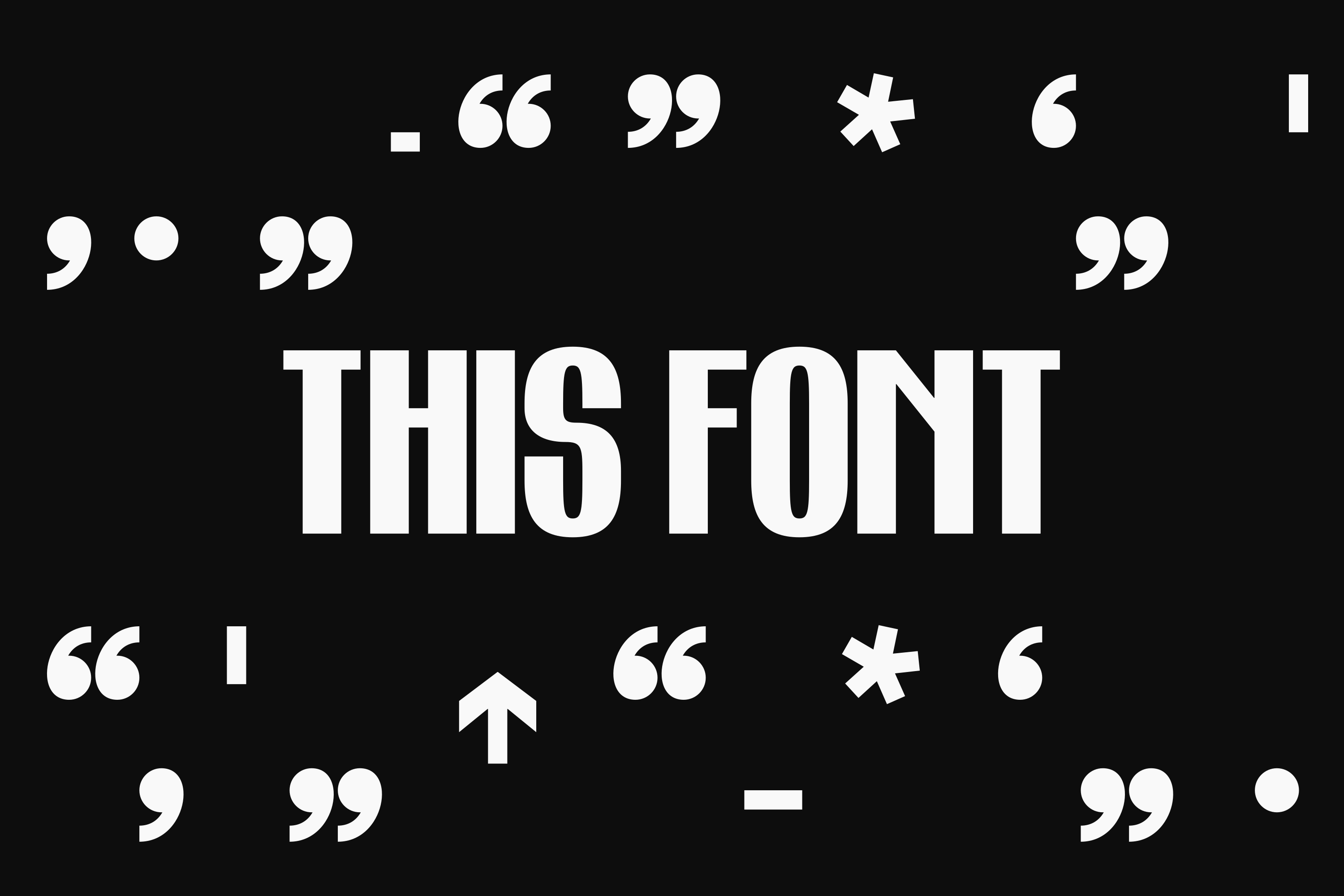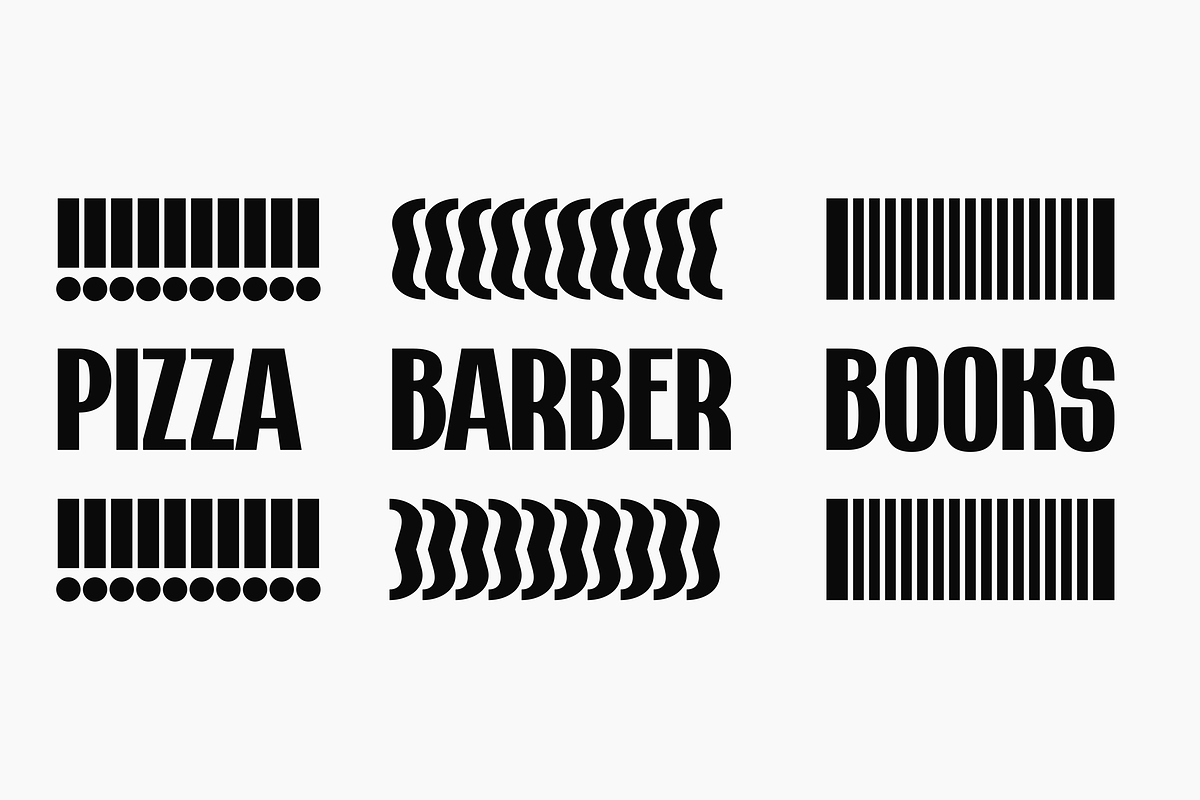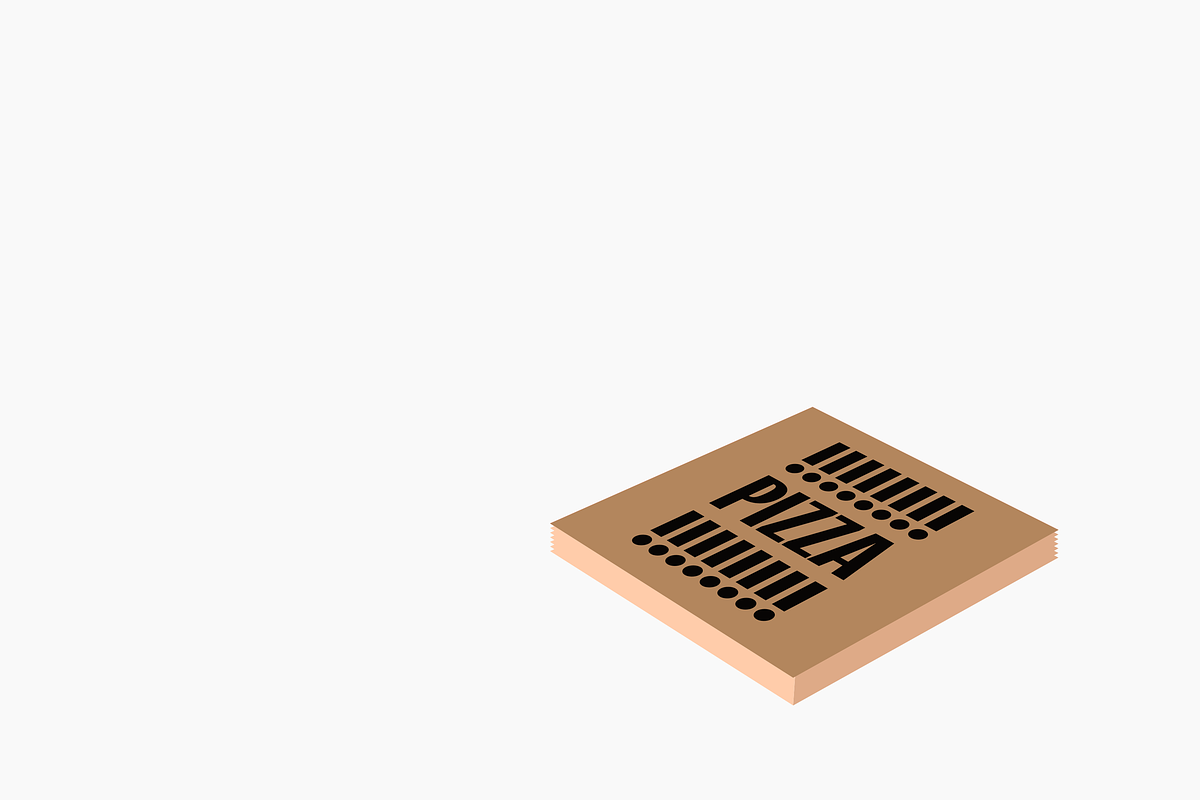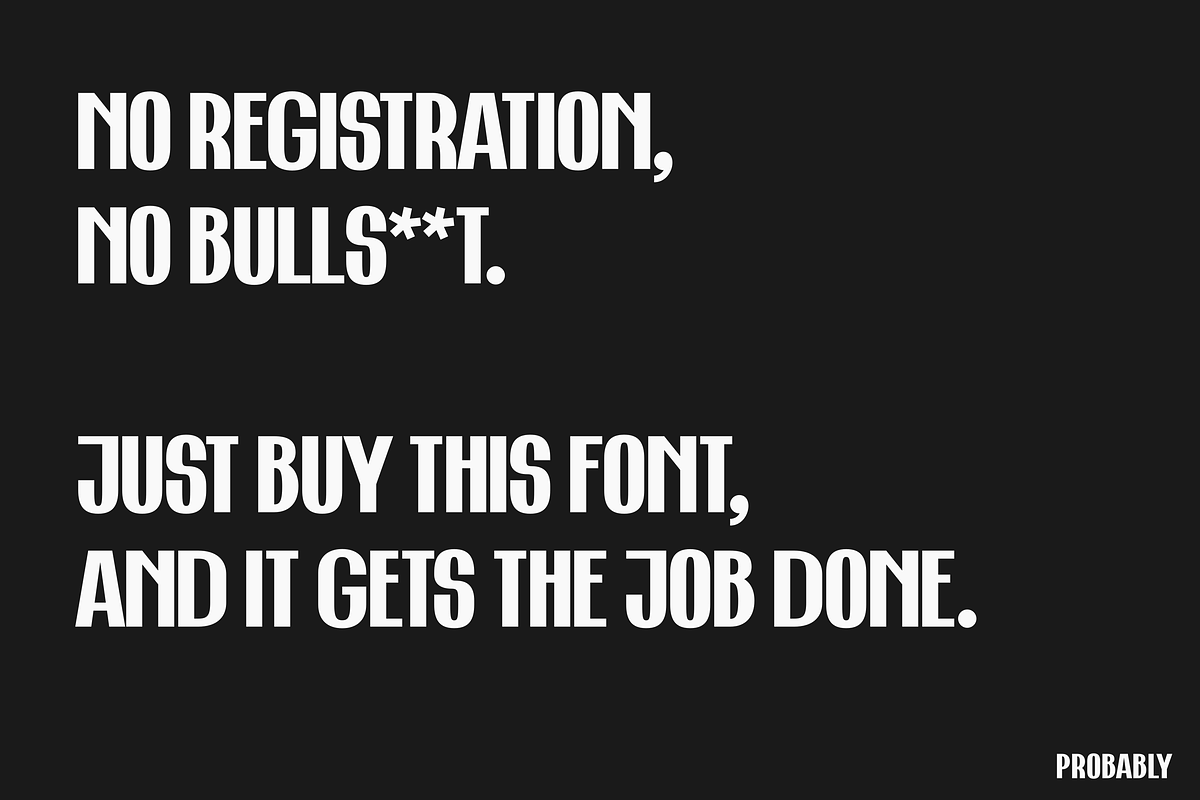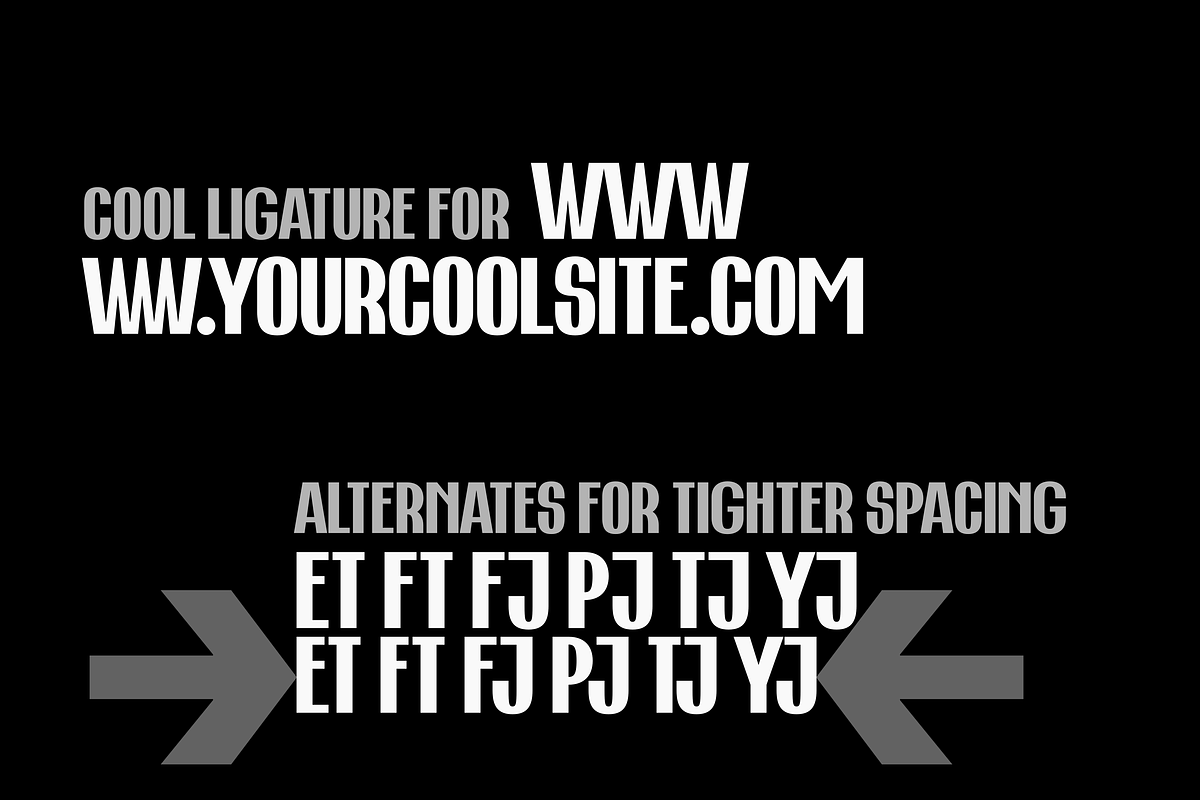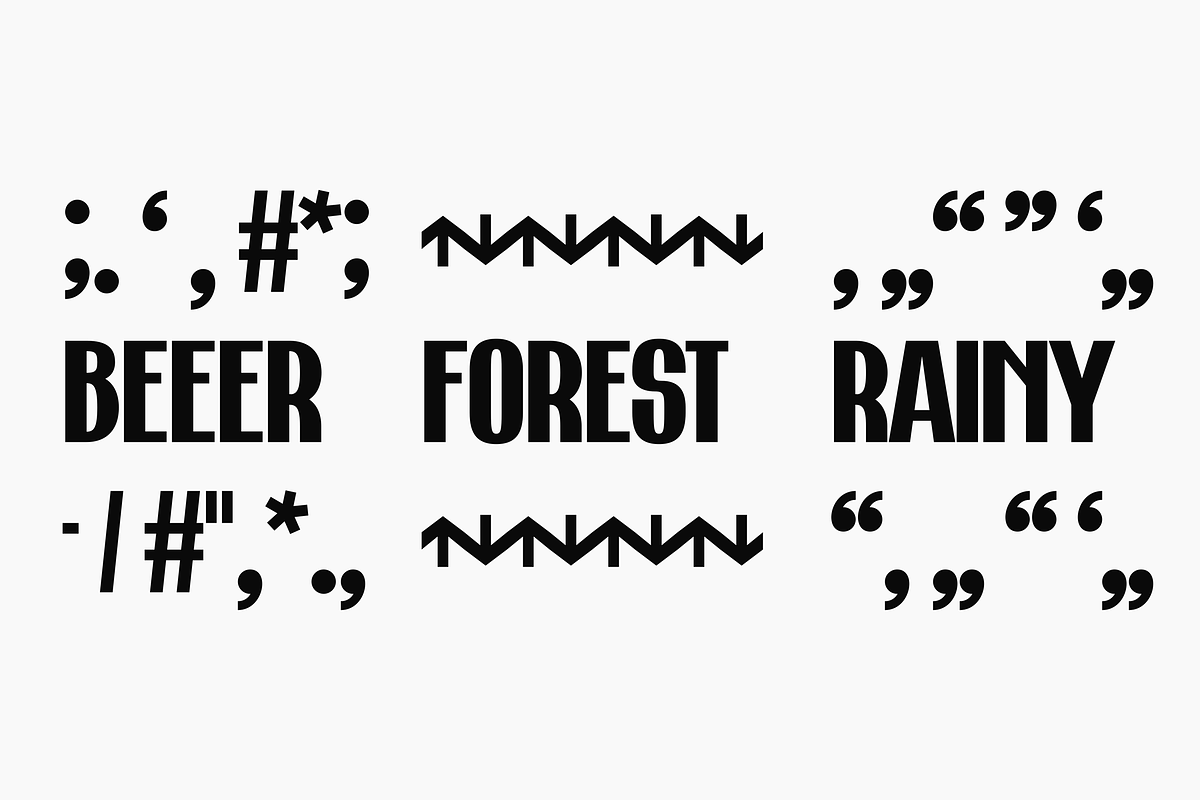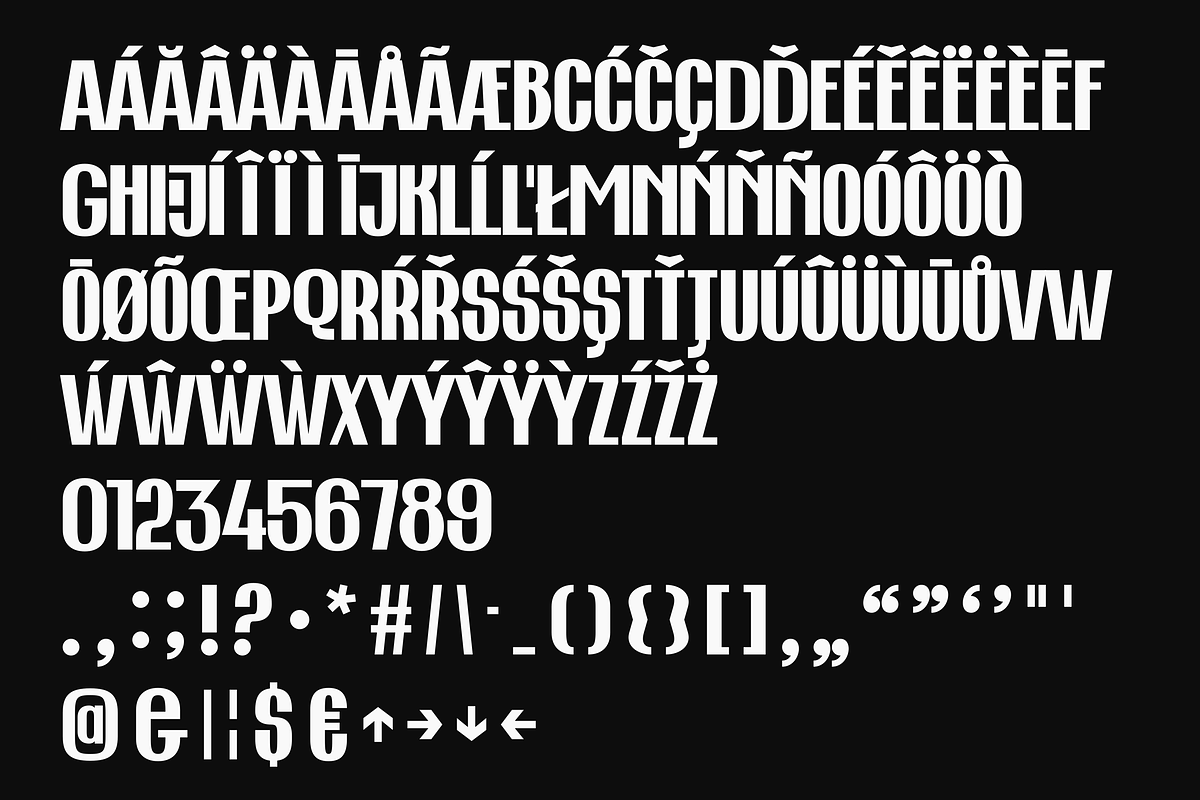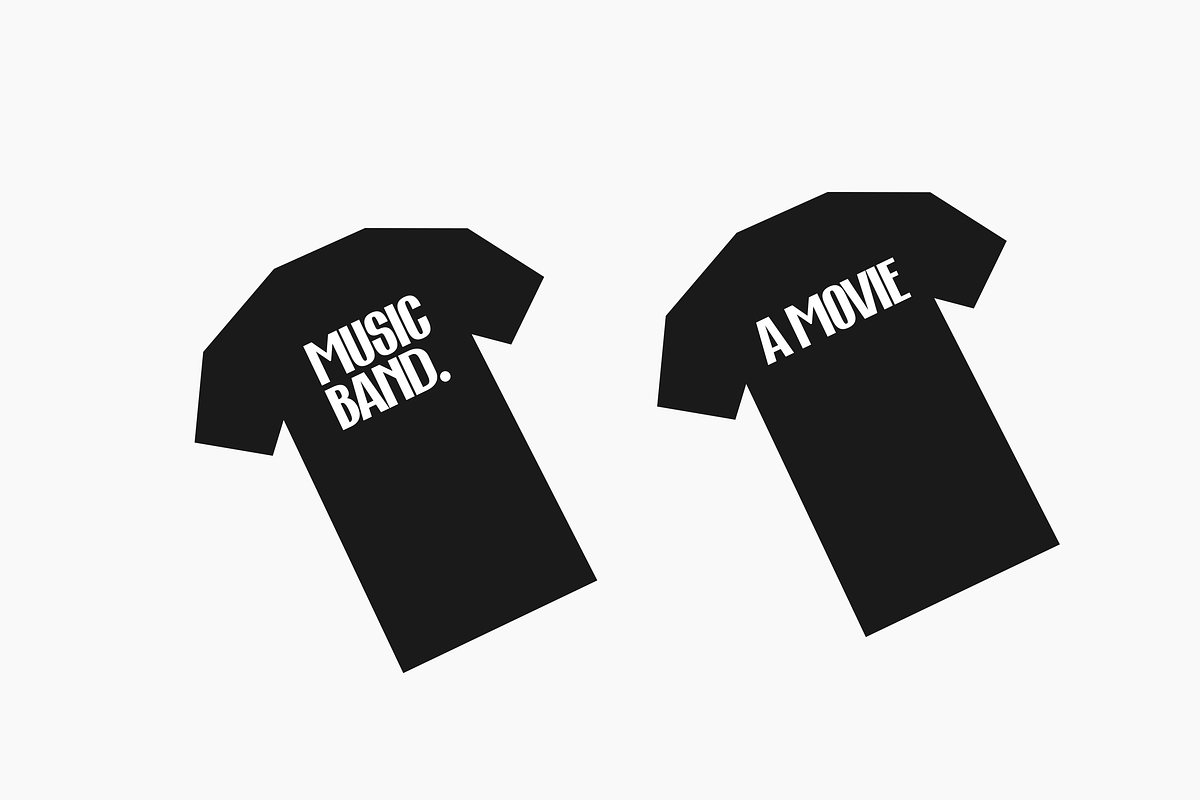
This Font - Display Font
Introducing "This Font" – a simple but powerful display font designed for branding, packaging, posters, book covers, magazines and logos. It's perfect for creating a memorable visual identity.